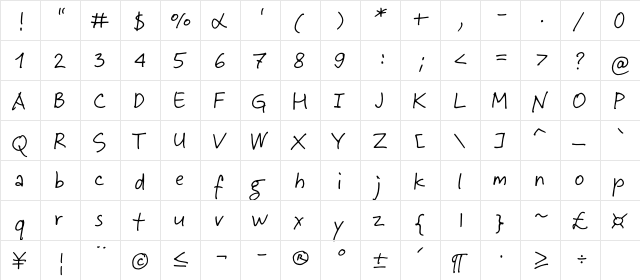
Jeff Script Regular
Design Context for Jeff Script Typeface
Jeff Script flows with the natural rhythm of handwritten lettering, making it ideal for designs that call for warmth and personal expression.
Font Pairing: Combine Jeff Script with a simple geometric sans for maximum contrast — the tension between flowing curves and clean structure is a classic typographic pairing.
Pro Tip: Use Jeff Script for short runs of text — names, titles, or taglines. Extended body copy in script faces tires the eye quickly.